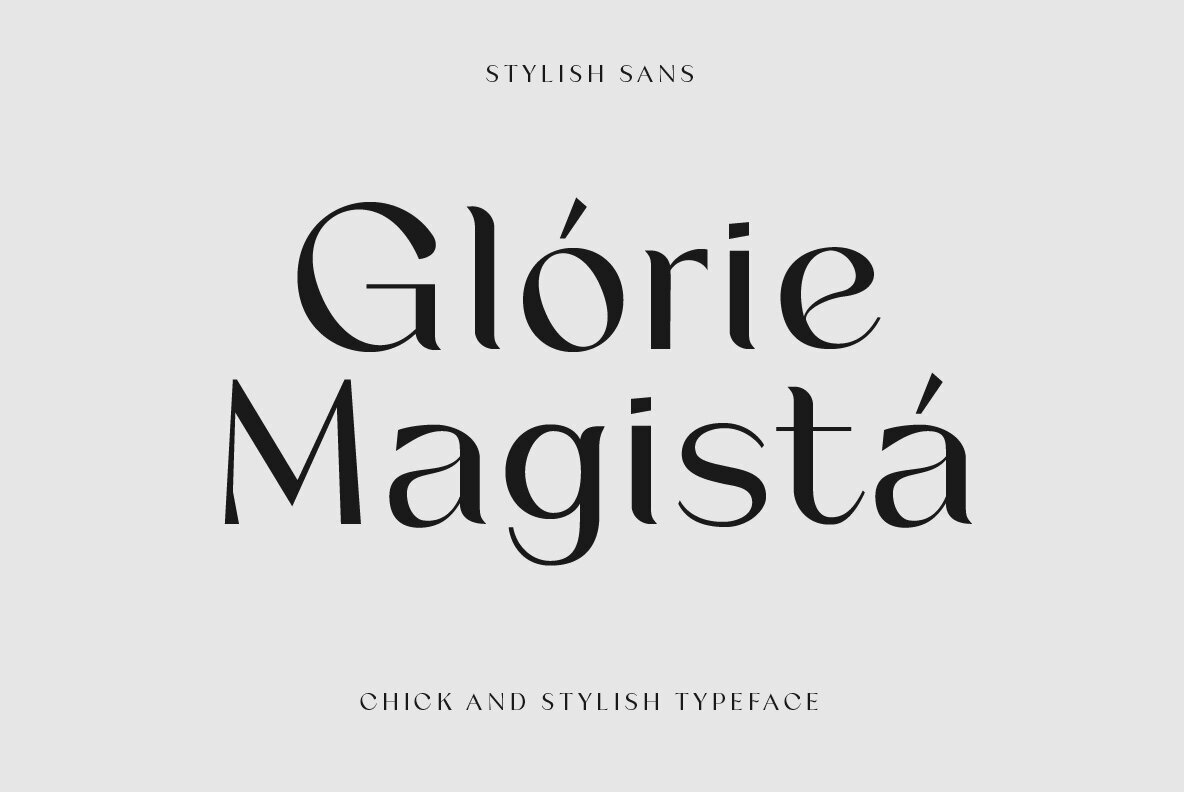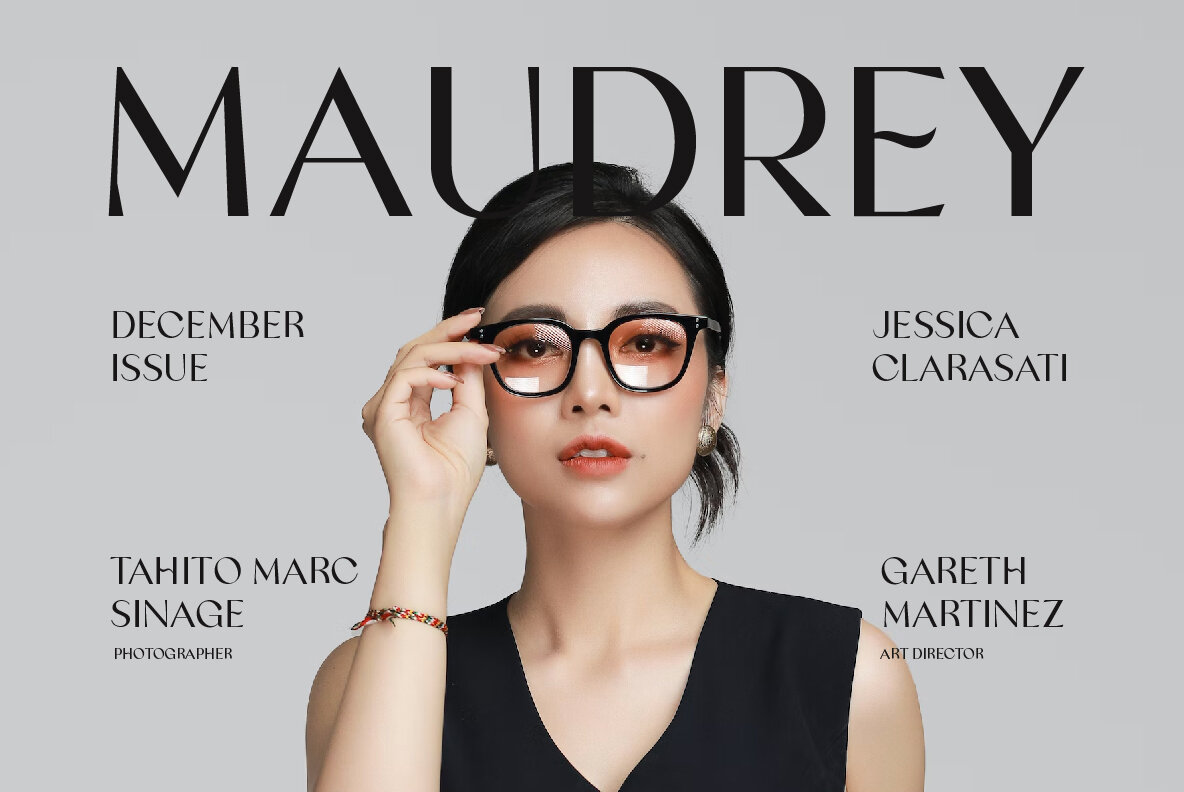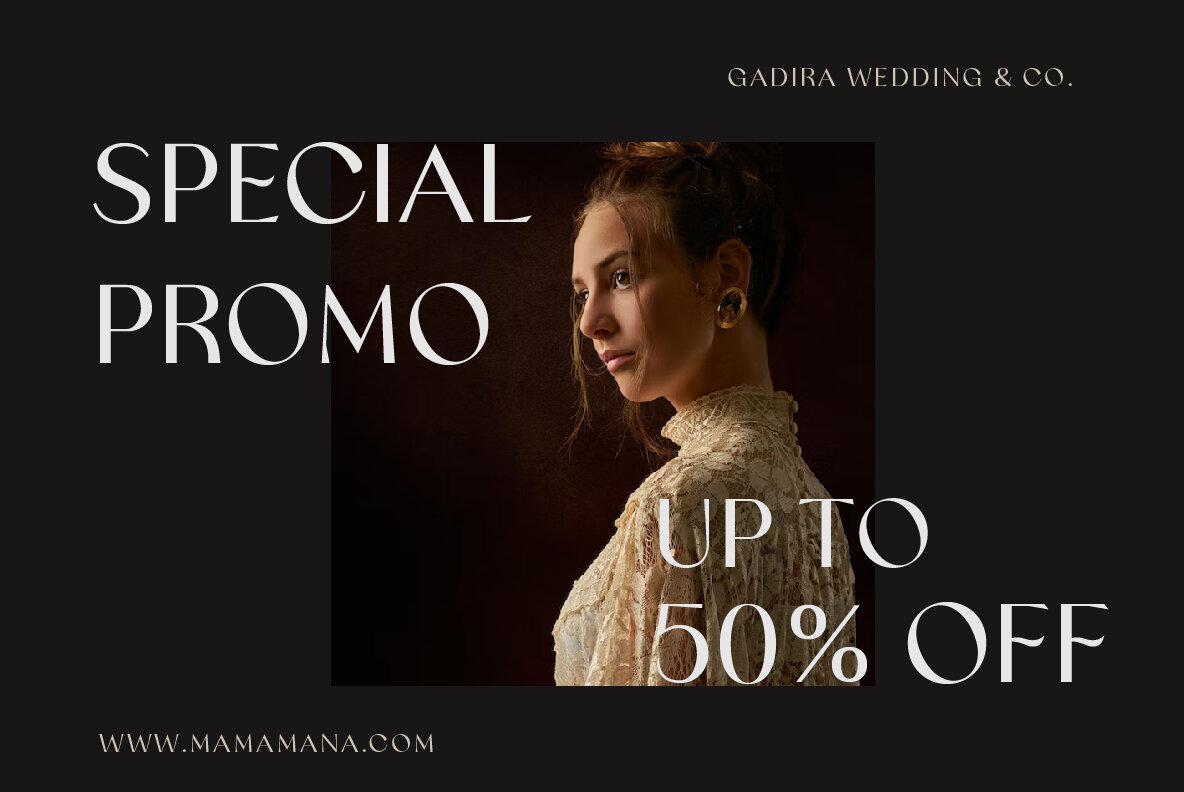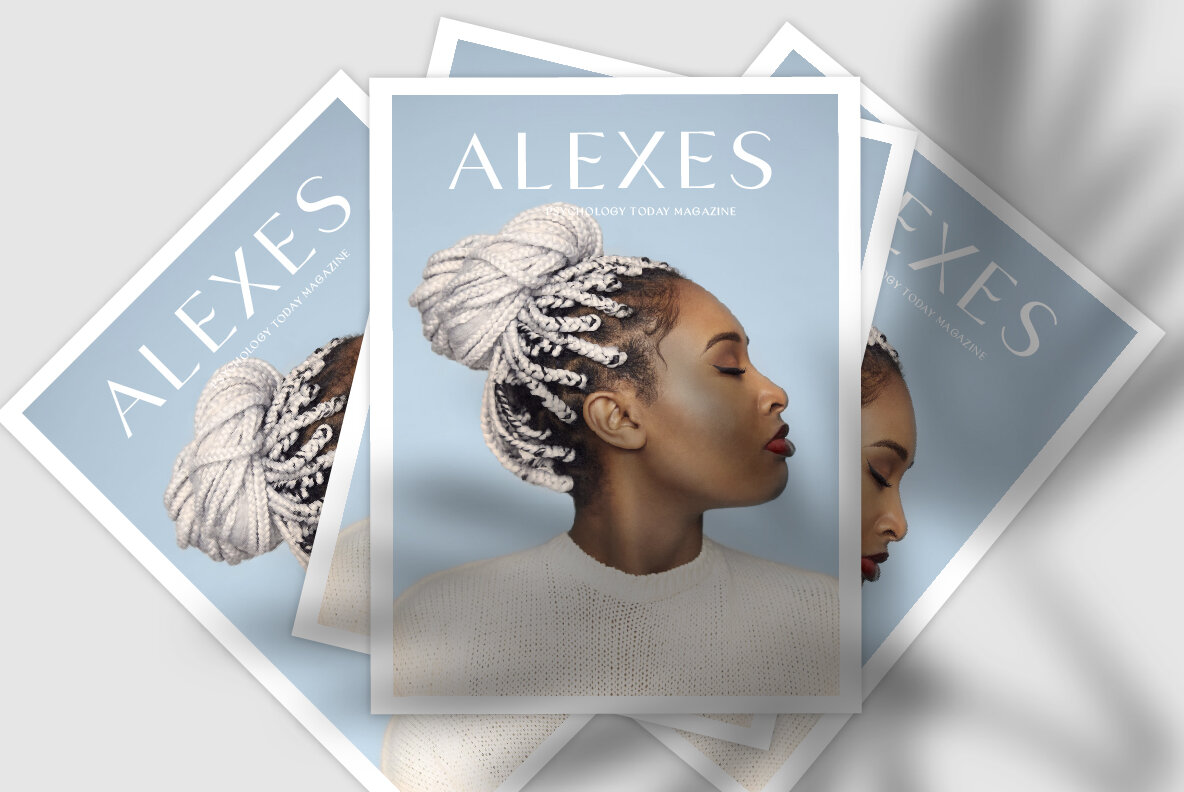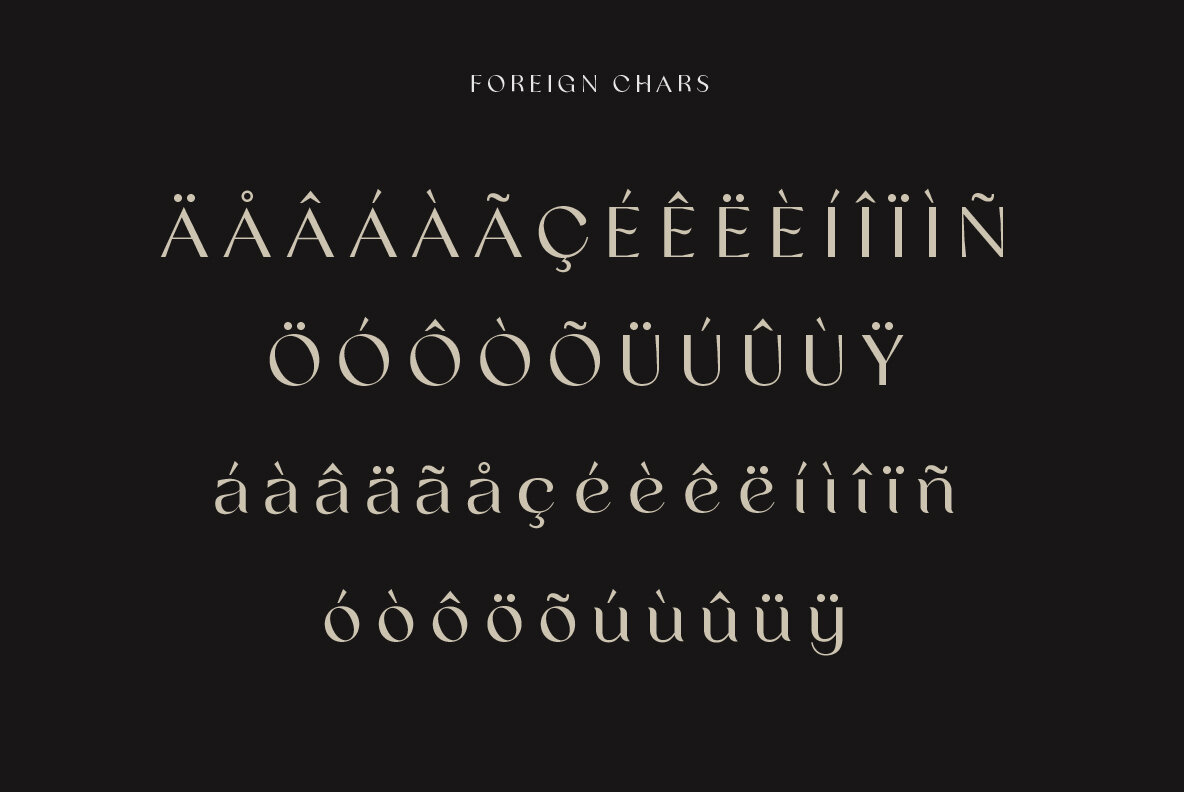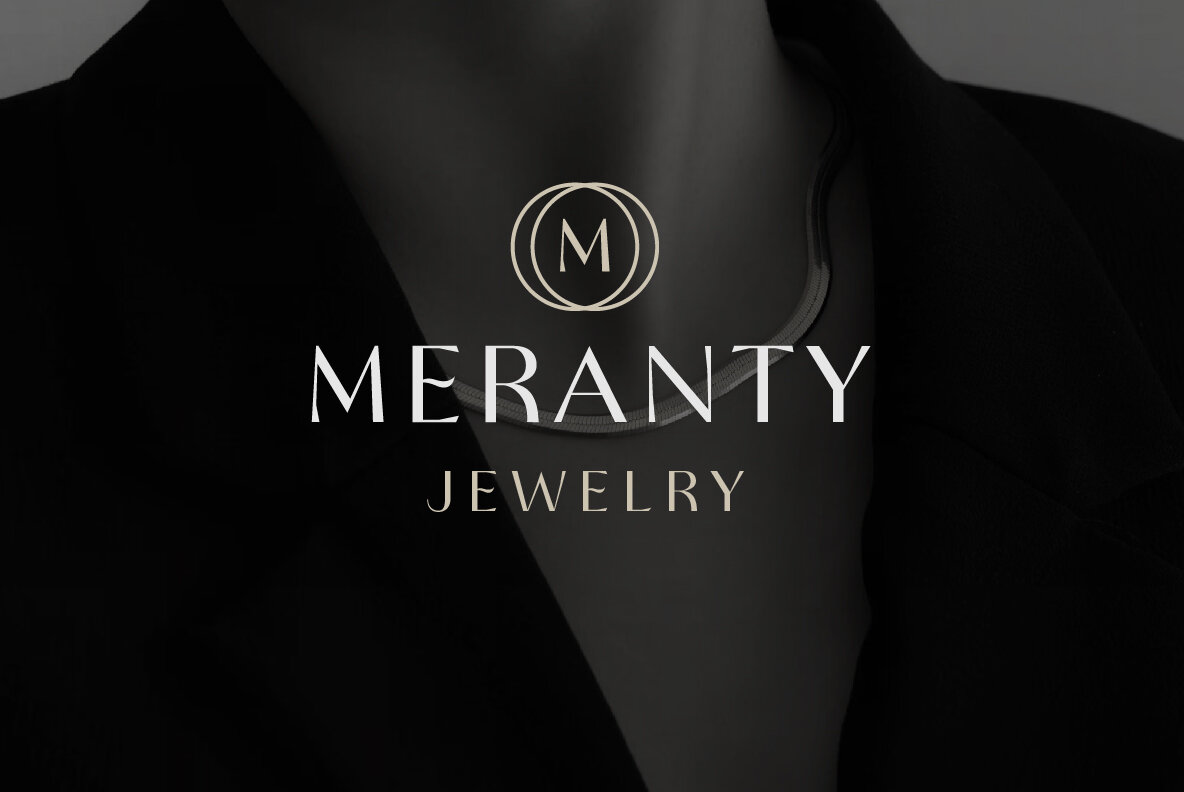
Galine: A Distinctive Choice for Luxurious Designs
The Galine Modern Luxury Font by Yukita Creative epitomizes sophistication and style. Its unique design offers an elegant touch to a diverse array of projects, serving as a perfect choice for those aiming to make a distinctive statement in their work.
• Exquisite styling that enhances elegant logos and titles.
• Ideal for classy magazine layouts and more.
• Supports multiple languages, facilitating global usage.